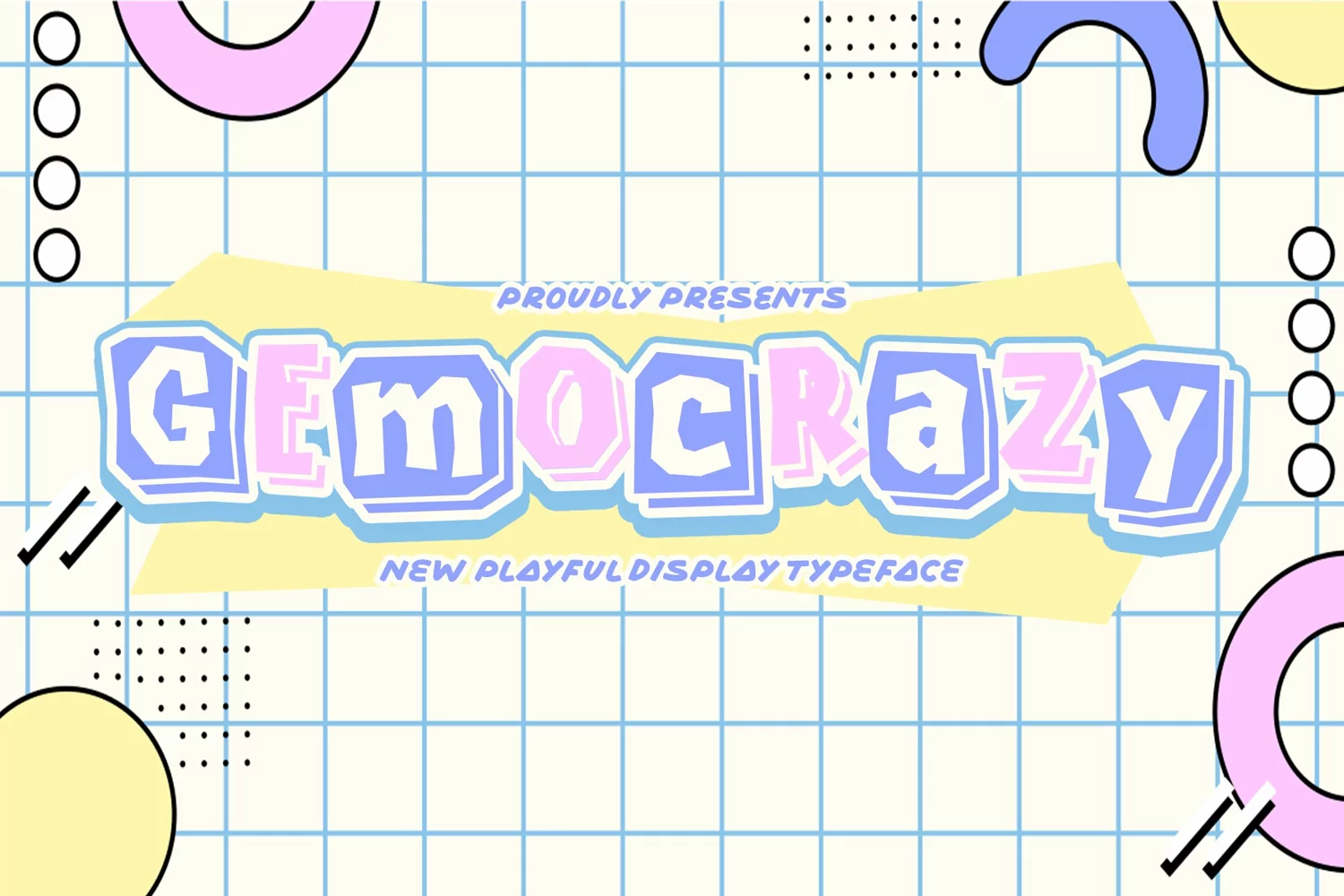
Gemocrazy is a display font inspired from street poster but in the cute way. Full energy but not rebel looks. Anti mainstream and dare to take something different.